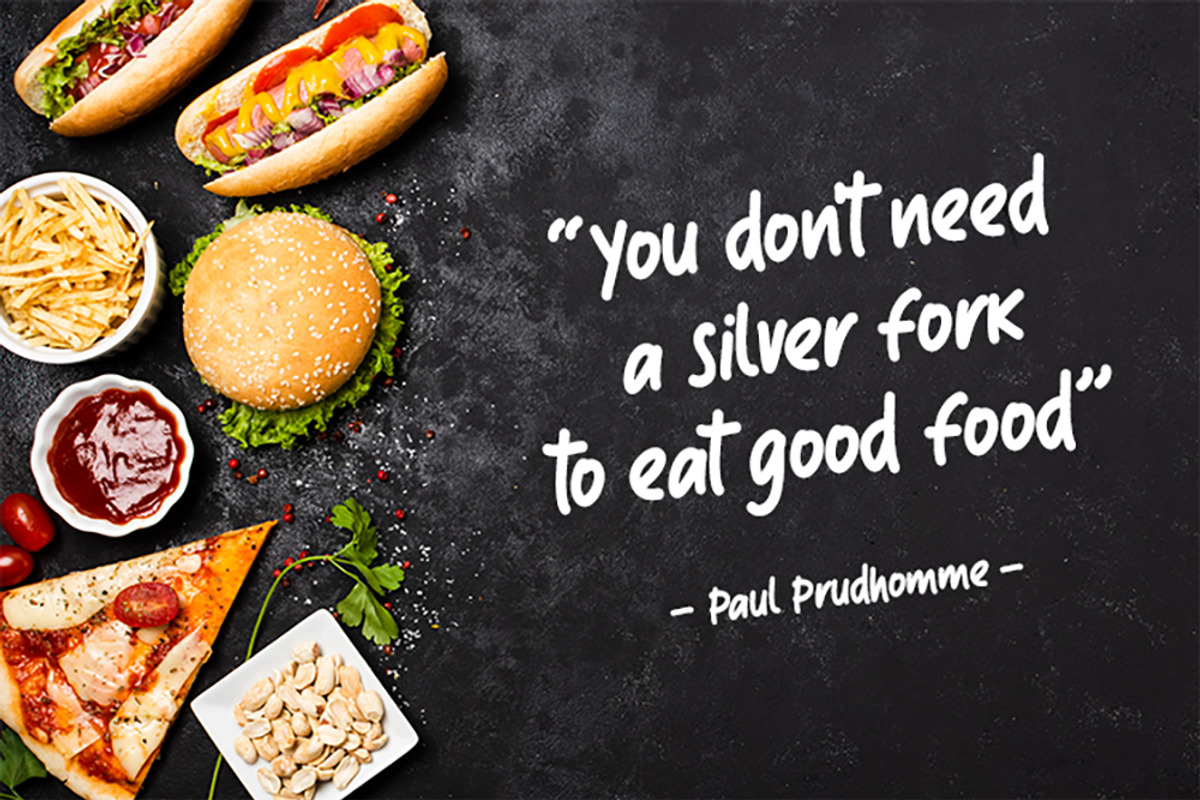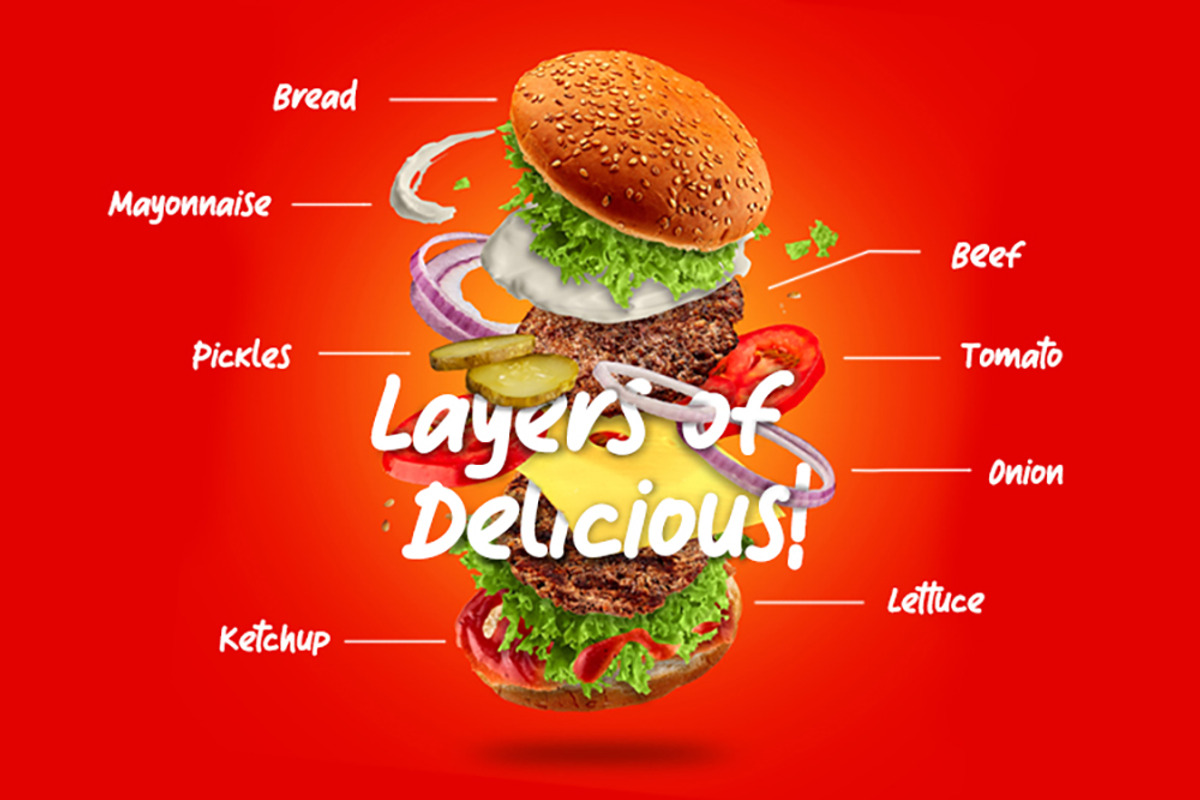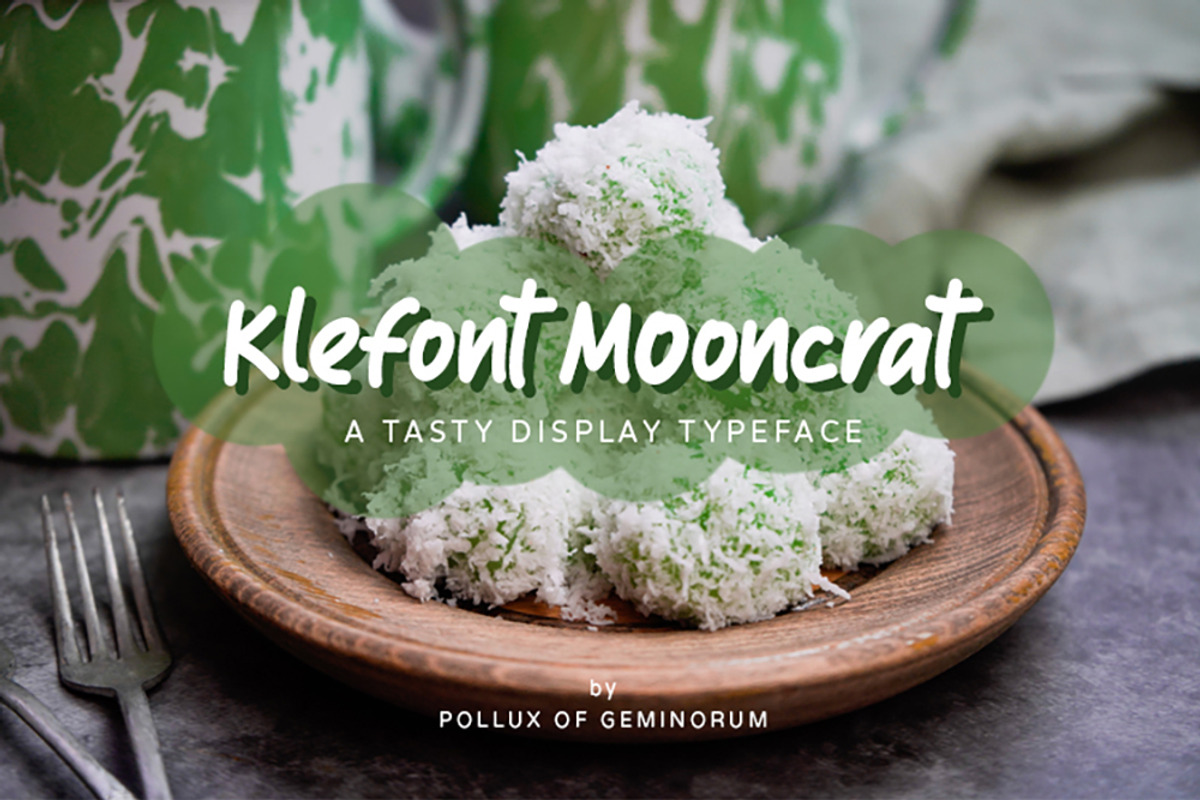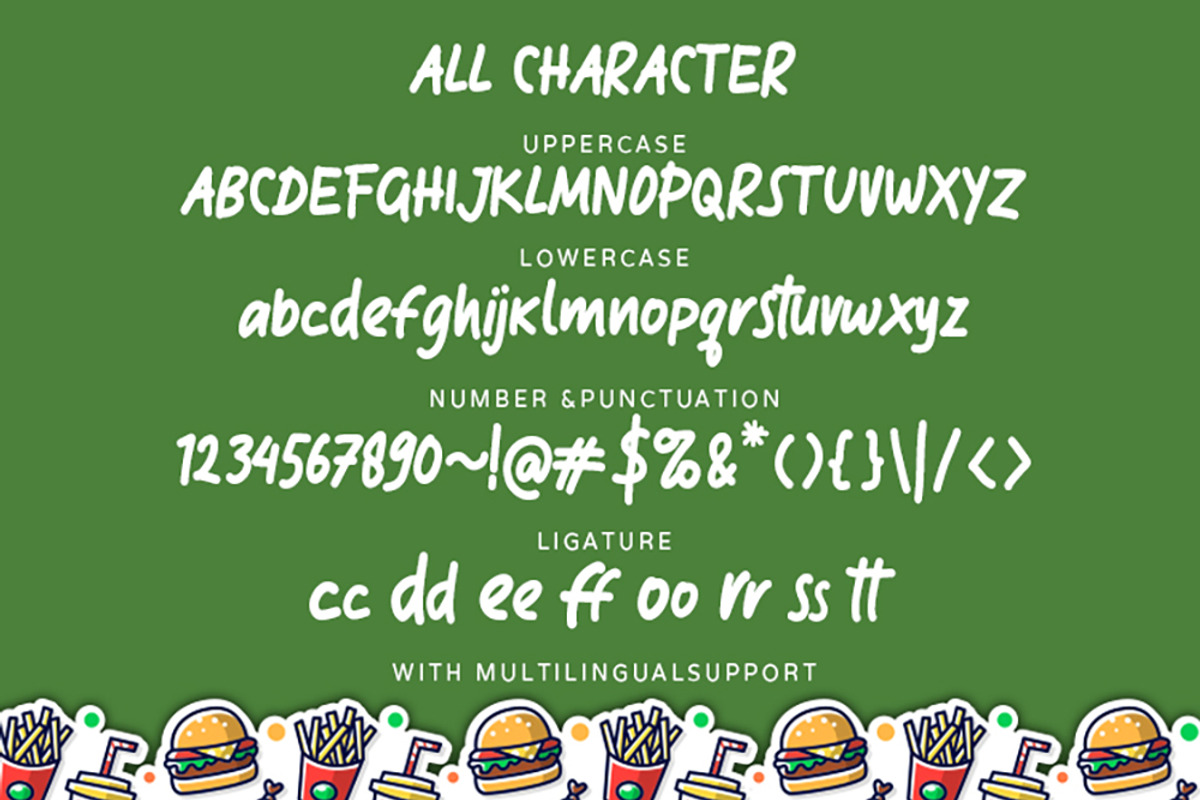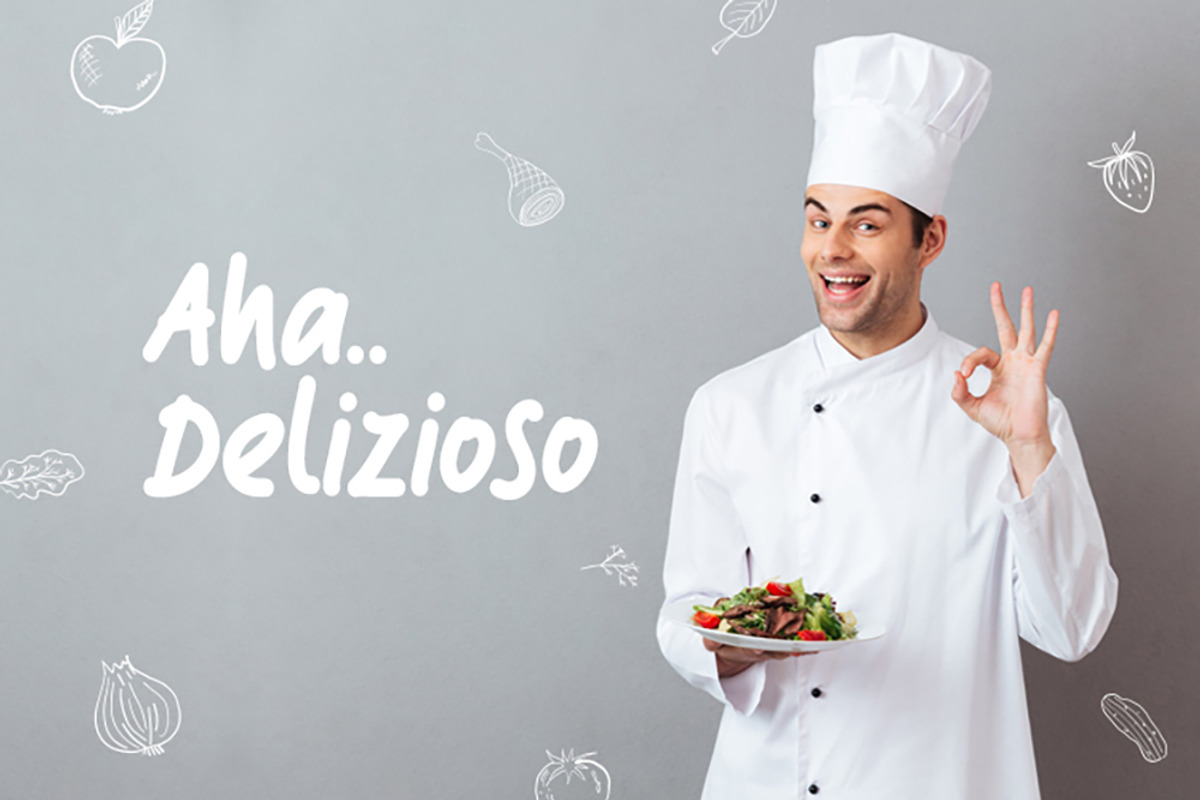
Klefont Mooncrat - Tasty Font
Klefont Mooncrat: A Tasty Typeface That Evokes Flavor and Fun!
Introducing Klefont Mooncrat, a delightful and flavorful display font that’s bound to leave an impression! Inspired by the textures and forms of traditional snacks, this typeface embodies a playful yet professional touch, making it perfect for food-related projects. Whether you're designing menus, food packaging, social media posts, or branding materials, Klefont Mooncrat adds a charming, homemade feel that’s impossible to resist.
With its hand-drawn, soft curves and organic lines, Klefont Mooncrat brings a sense of warmth and familiarity, much like the joy of tasting your favorite snack. The natural flow of each letter invites your audience to savor every word, making it the perfect choice for bakeries, cafés, culinary bloggers, and food enthusiasts alike.
But Klefont Mooncrat isn't just about aesthetics—it’s about creating an emotional connection. This tasty font invites your audience to indulge in your message, much like they would in a delicious treat. Add a dash of fun to your next project and let Klefont Mooncrat do the talking. Get ready to transform your designs into something truly mouthwatering!
Take a bite of creativity today and let your designs rise with Klefont Mooncrat!